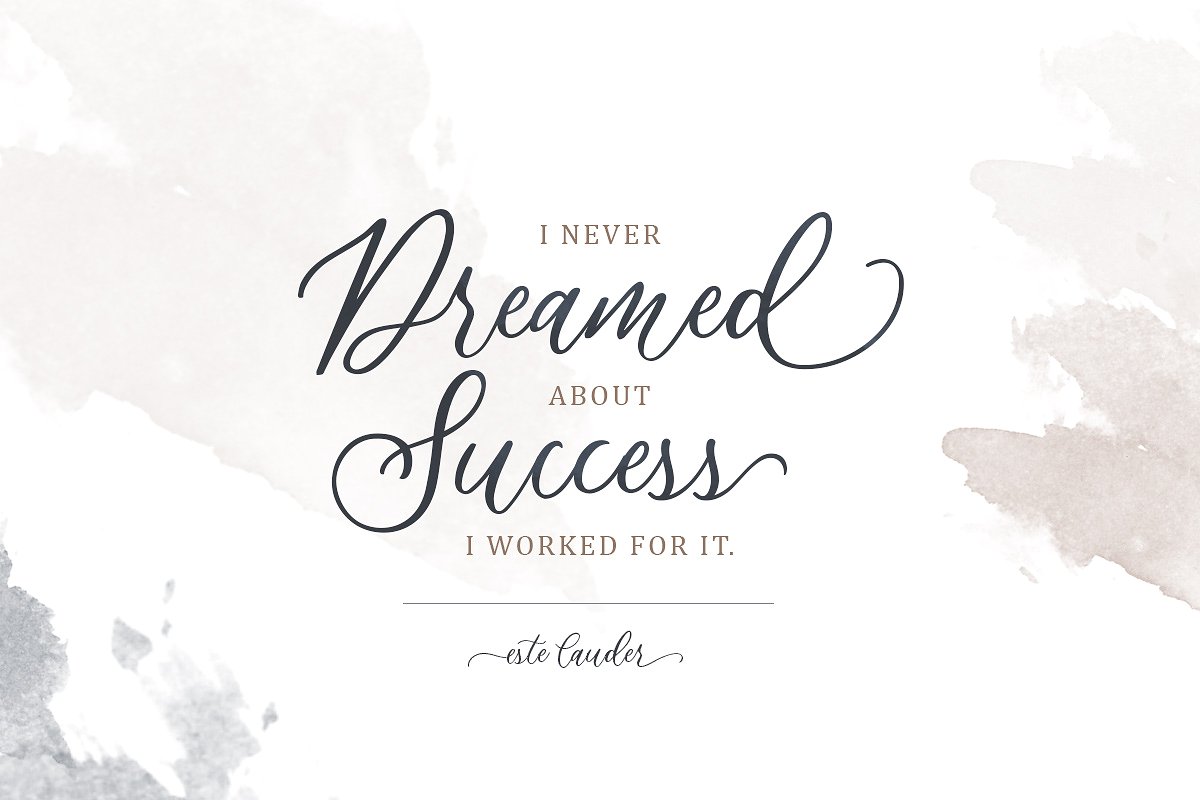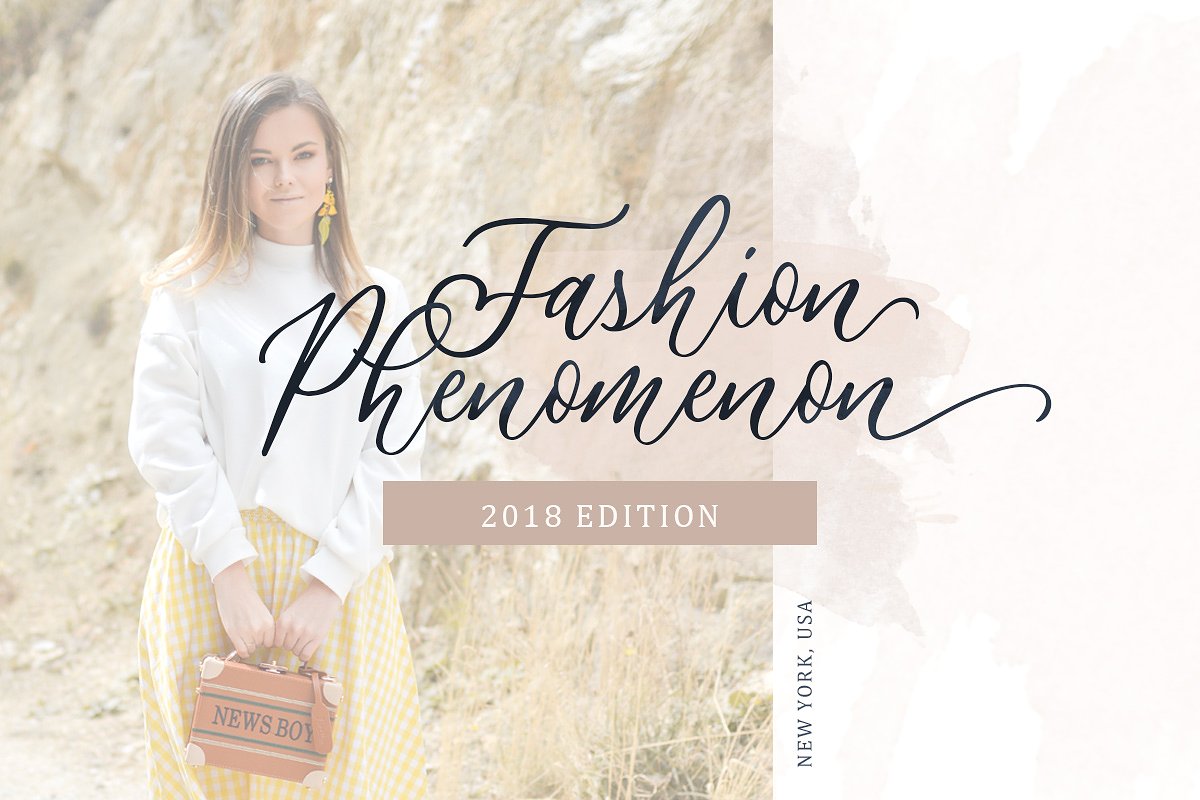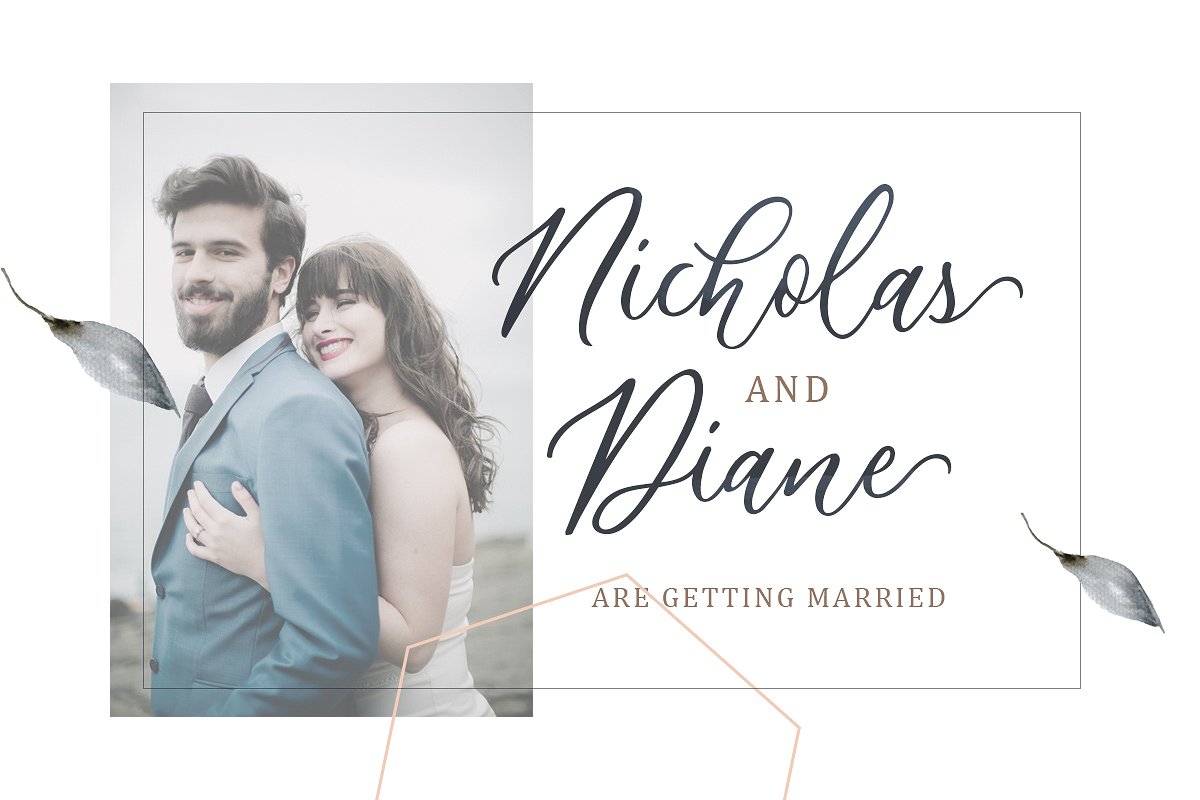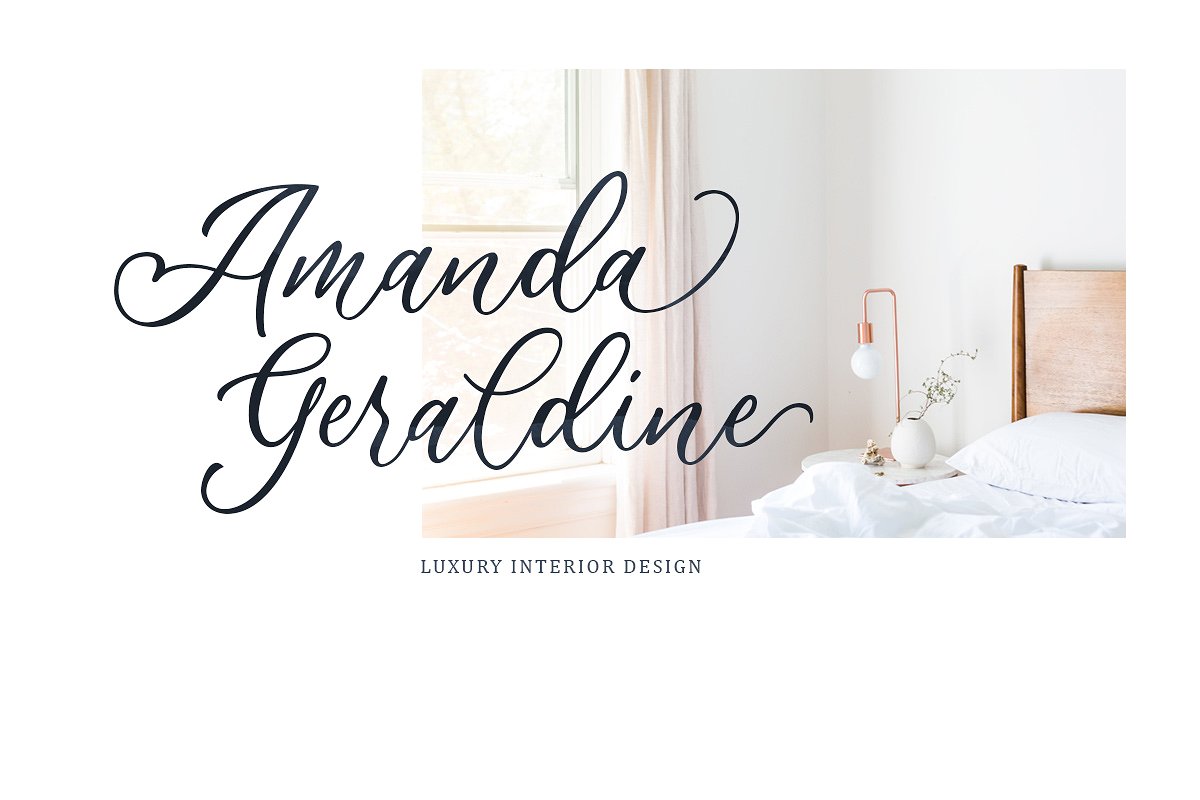
Athalia Script Font
This is lovely and simple artistic multipurpose calligraphy font, ideal for give to your design a traditional feeling, casual style and luxury looks. Introducing Athalia Font. Athalia, a lovely modern script that bring luxury feel. The natural hand writing script is suitable for you who needs a typeface for headline, logotype, apparel, invitation, branding, packaging, advertising etc. This typeface is comes in uppercase, lowercase, punctuations, symbols & numerals, stylistic set alternate, ligatures, etc also support multilingual.